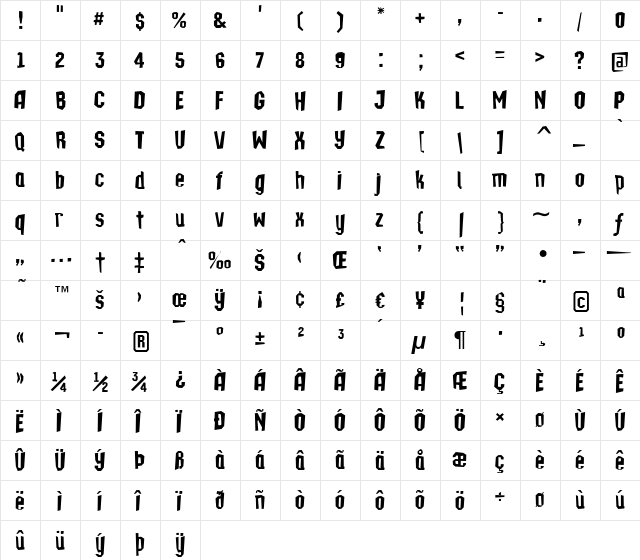
a_TechnicsBrk DemiBold
| Designer | W.Chufarofsky & M.Slutsker |
Design Context for a_TechnicsBrk Typeface
a_TechnicsBrk channels digital-age aesthetics through its sharp, structured letterforms — ideal for brands that want to signal innovation. The heavy weight commands attention and anchors typographic hierarchies.